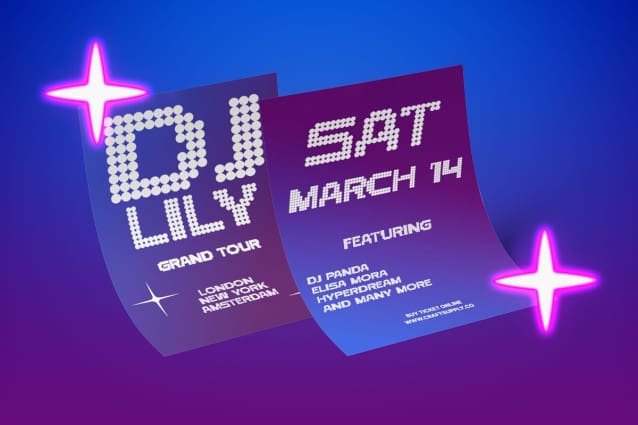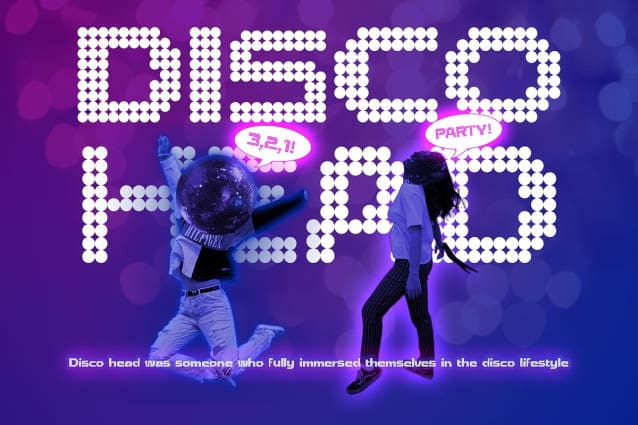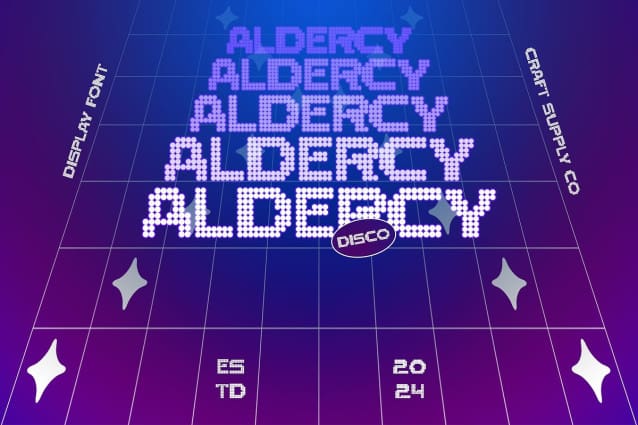
Aldercy Disco Font
Aldercy Disco Font: Groovy Glyphs for Vibrant Displays. Inspired by Disco Vibes Aldercy Disco takes inspiration from the vibrant and dynamic atmosphere of discotheques, infusing its design with energy and rhythm reminiscent of the disco era.
Circular Sans Serif Glyphs Crafted as circular sans serif glyphs, This font unique arrangement creates a captivating visual rhythm that echoes the pulsating beats of disco music. Each character dances across the display screen with playful elegance.
Perfect for Vibrant Displays Tailored for vibrant displays, This font shines in various contexts, from event promotions to digital branding. Its lively and engaging design adds a touch of retro flair to any project.
A Fusion of Fun and Functionality Beyond its stylish appearance, This font seamlessly combines fun and functionality. Its rounded sans serif glyphs not only evoke a sense of playfulness but also ensure legibility and clarity in any display application.
Where Groove Meets Glyphs This font brings the spirit of disco to the world of typography, offering a lively and engaging option for vibrant displays. With its circular sans serif glyphs and disco-inspired design, it’s the perfect choice for projects seeking to capture the essence of fun and excitement. Let This font light up your designs and get the party started.